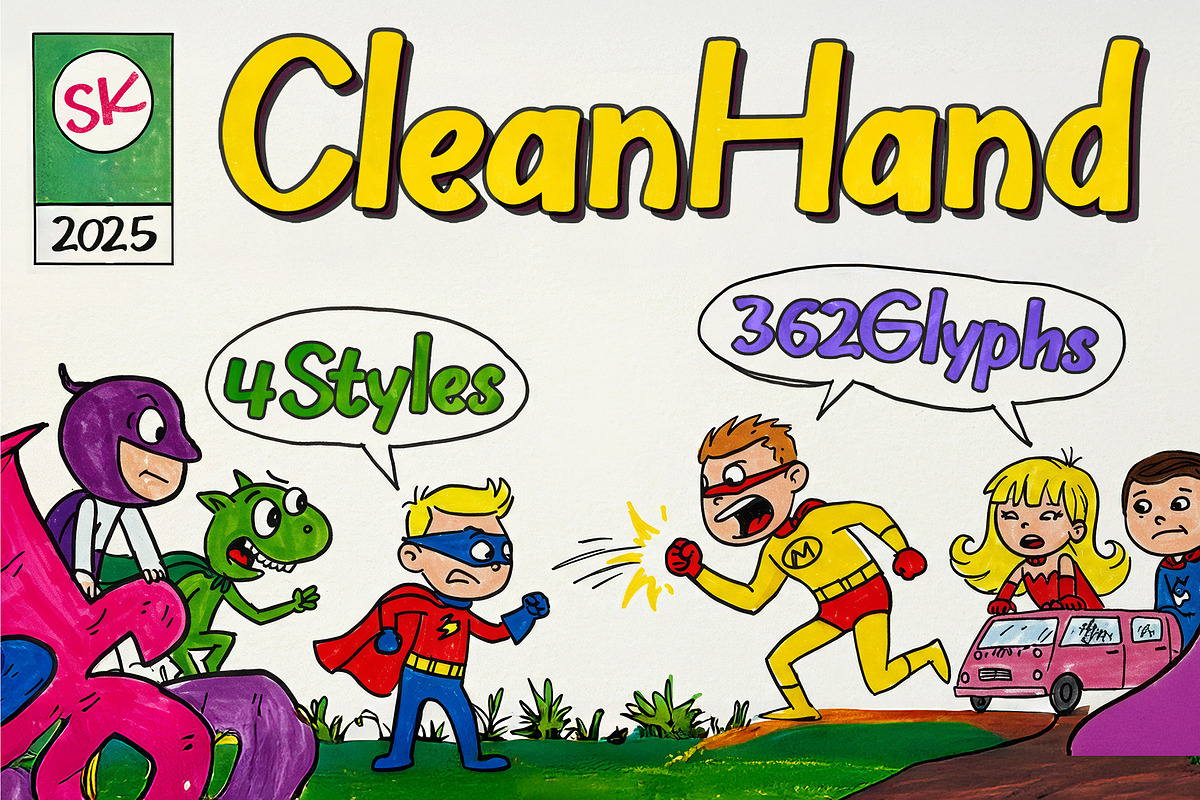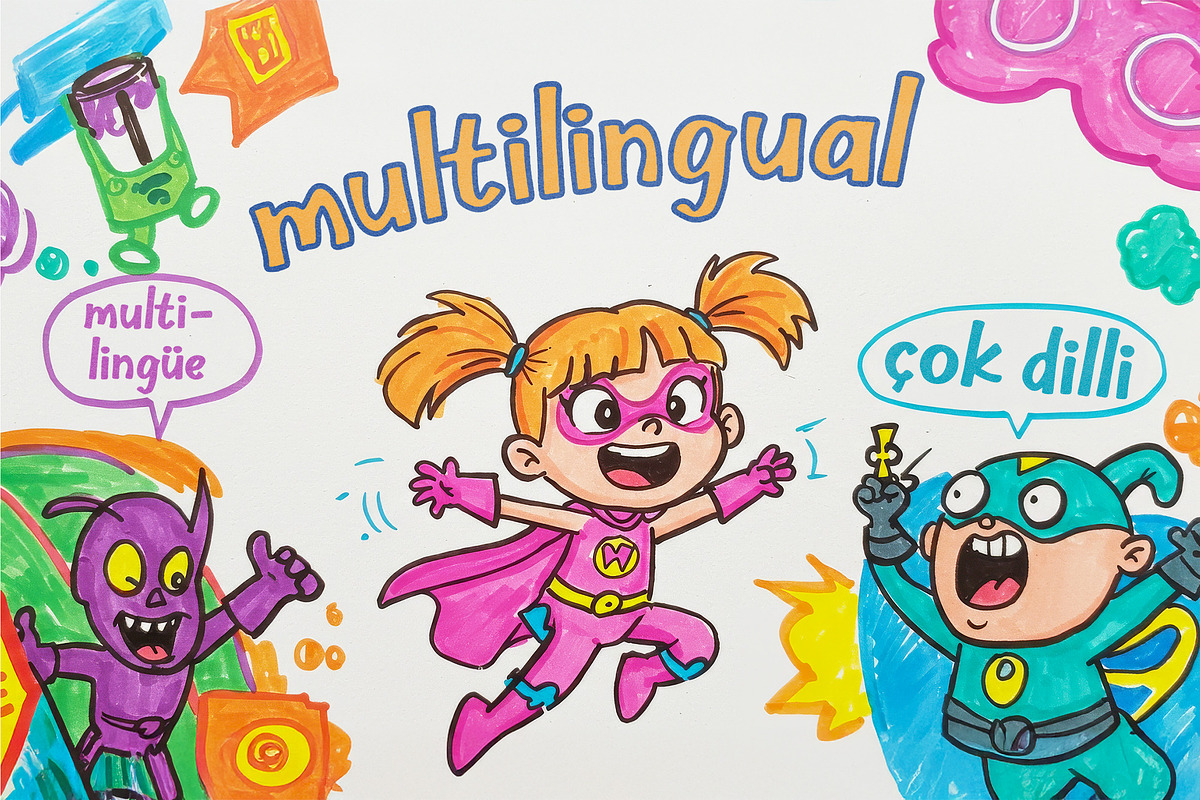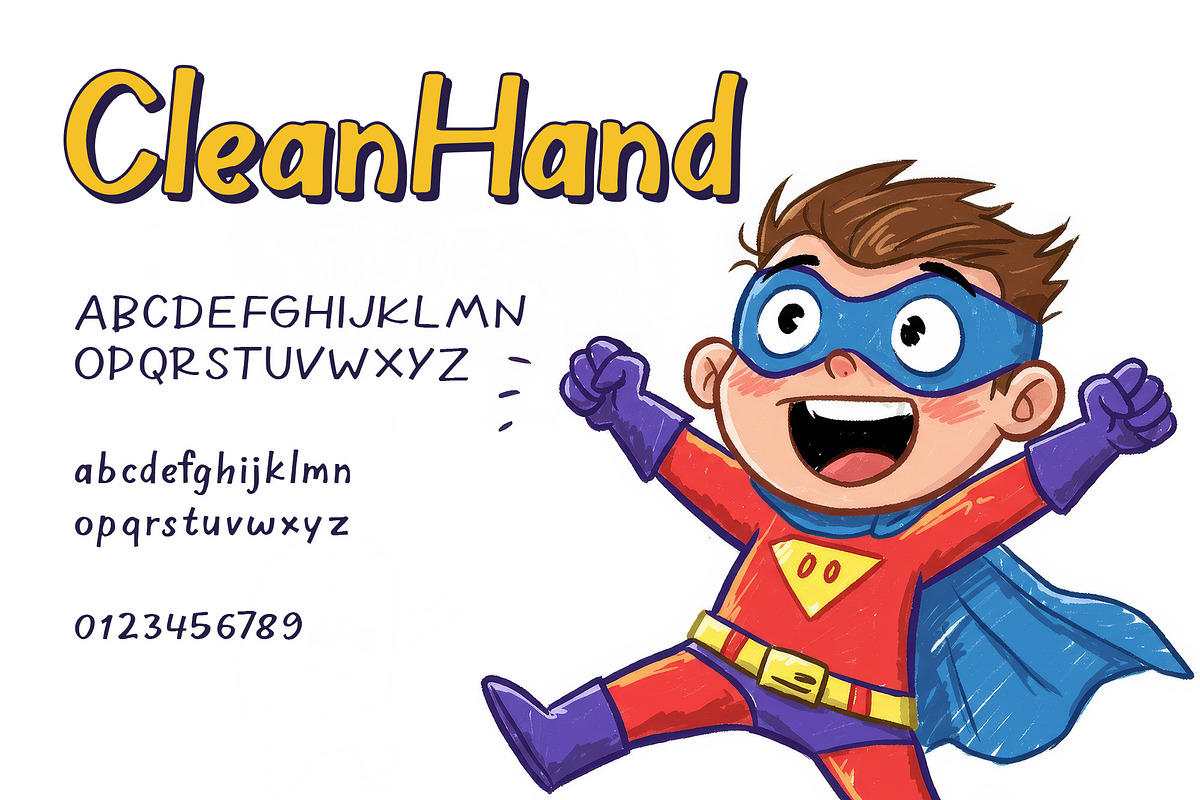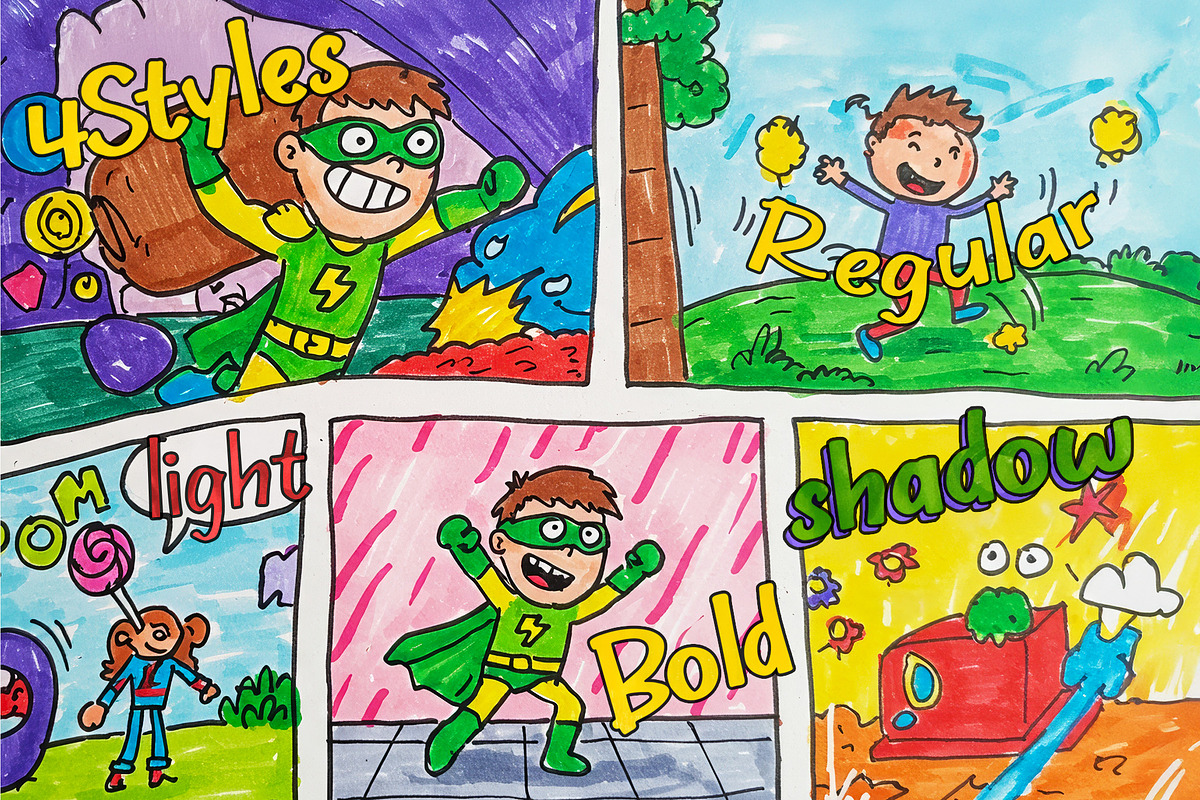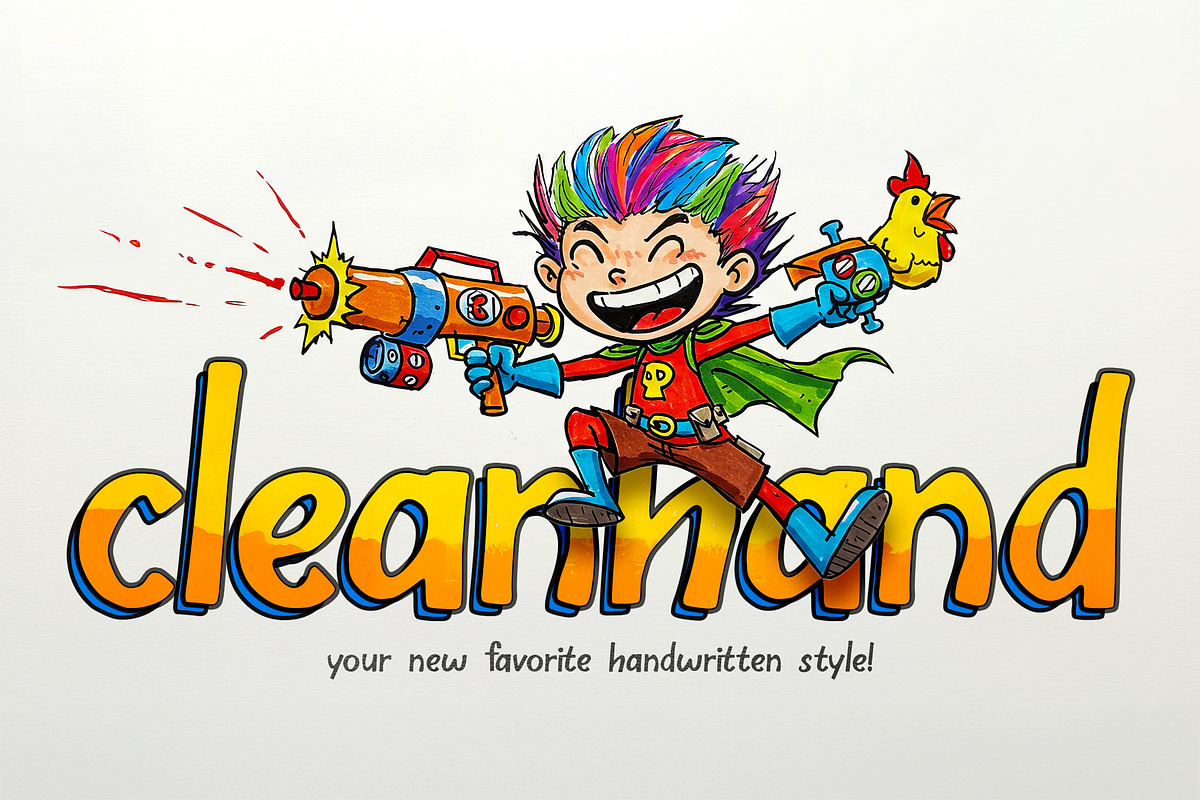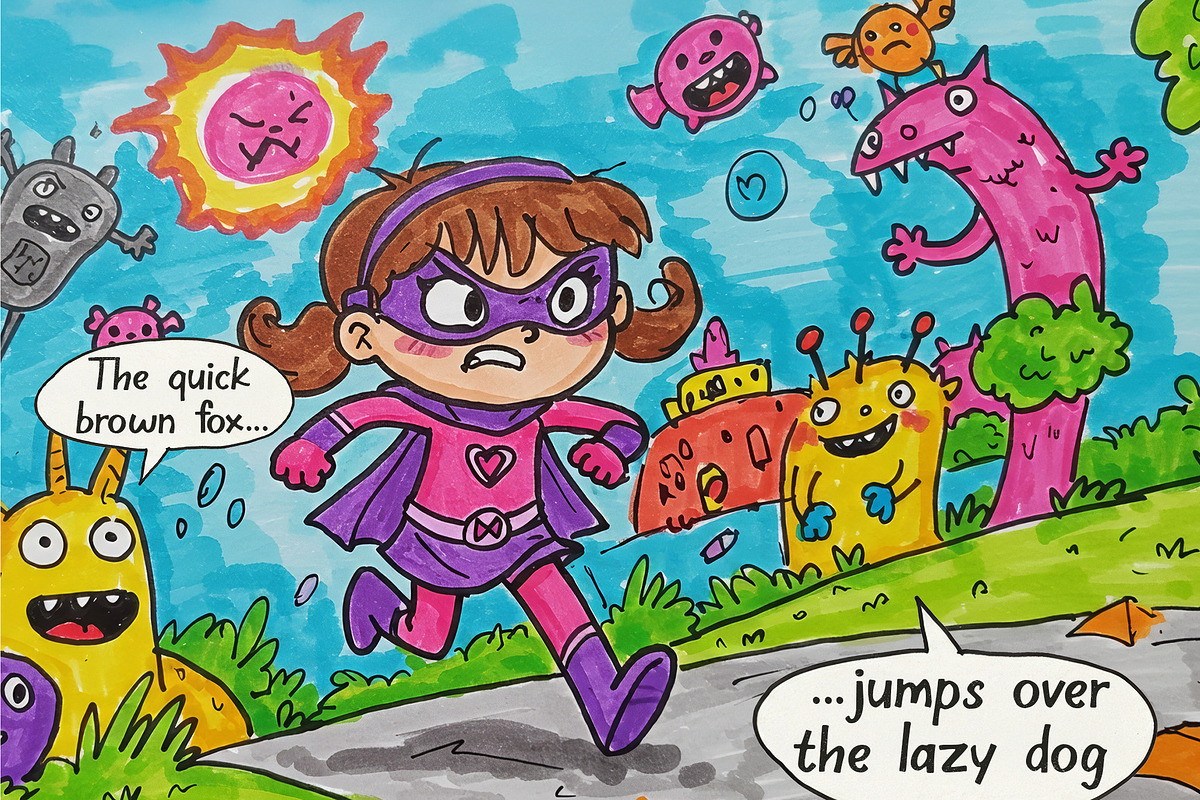
SK Clean Hand
SK Clean Hand is a meticulously designed handwritten typeface that combines the organic charm of pen-drawn letters with a sleek, contemporary finish. Available in four distinct styles—Light, Regular, Bold, and Shadow—this font offers versatility for a wide range of creative projects. Each style includes 362 carefully crafted glyphs, ensuring robust support for multilingual designs and unique typographic needs. With its smooth strokes, balanced proportions, and finely tuned kerning, SK Clean Hand delivers a clean yet authentic handwritten aesthetic. Perfect for branding, logos, invitations, or editorial work, this typeface brings warmth and personality to your designs while maintaining exceptional legibility. Whether you need the subtle elegance of Light, the confident presence of Bold, the playful depth of Shadow, or the timeless feel of Regular, SK Clean Hand adapts effortlessly to your vision.